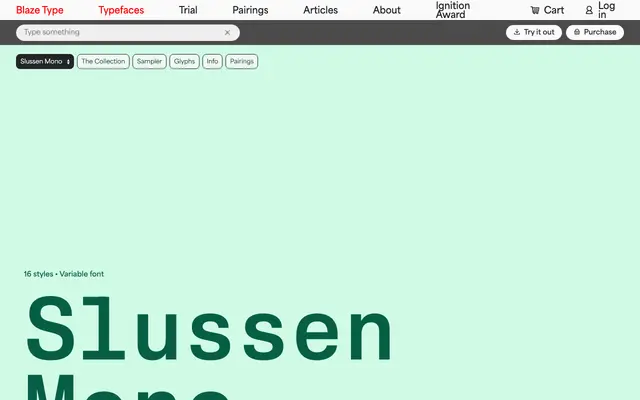
Slussen Mono
A monospaced companion to Slussen, carrying over the family's angular construction-site aesthetic into a fixed-width format.
Designed by Hugo Jourdan and released in 2022, Slussen Mono is built on the same linear, angular outlines and flat stroke endings that define the broader Slussen family. Sixteen styles run from Thin to Black with matching italics, and a variable file is included. The uniform character width suits code, tabular data and text-based layouts where consistent spacing is required.
A monospaced variant of the Slussen neo-grotesque family, retaining the angular, flat-ended construction of its parent while applying uniform character widths throughout.